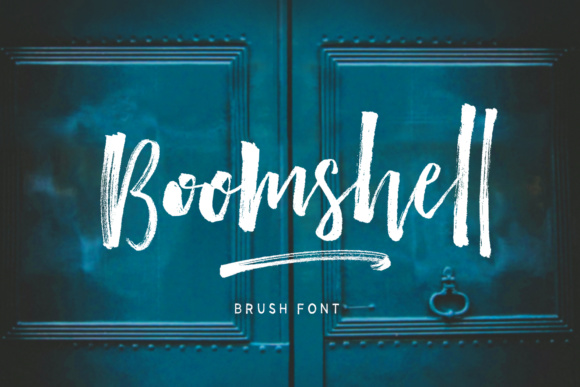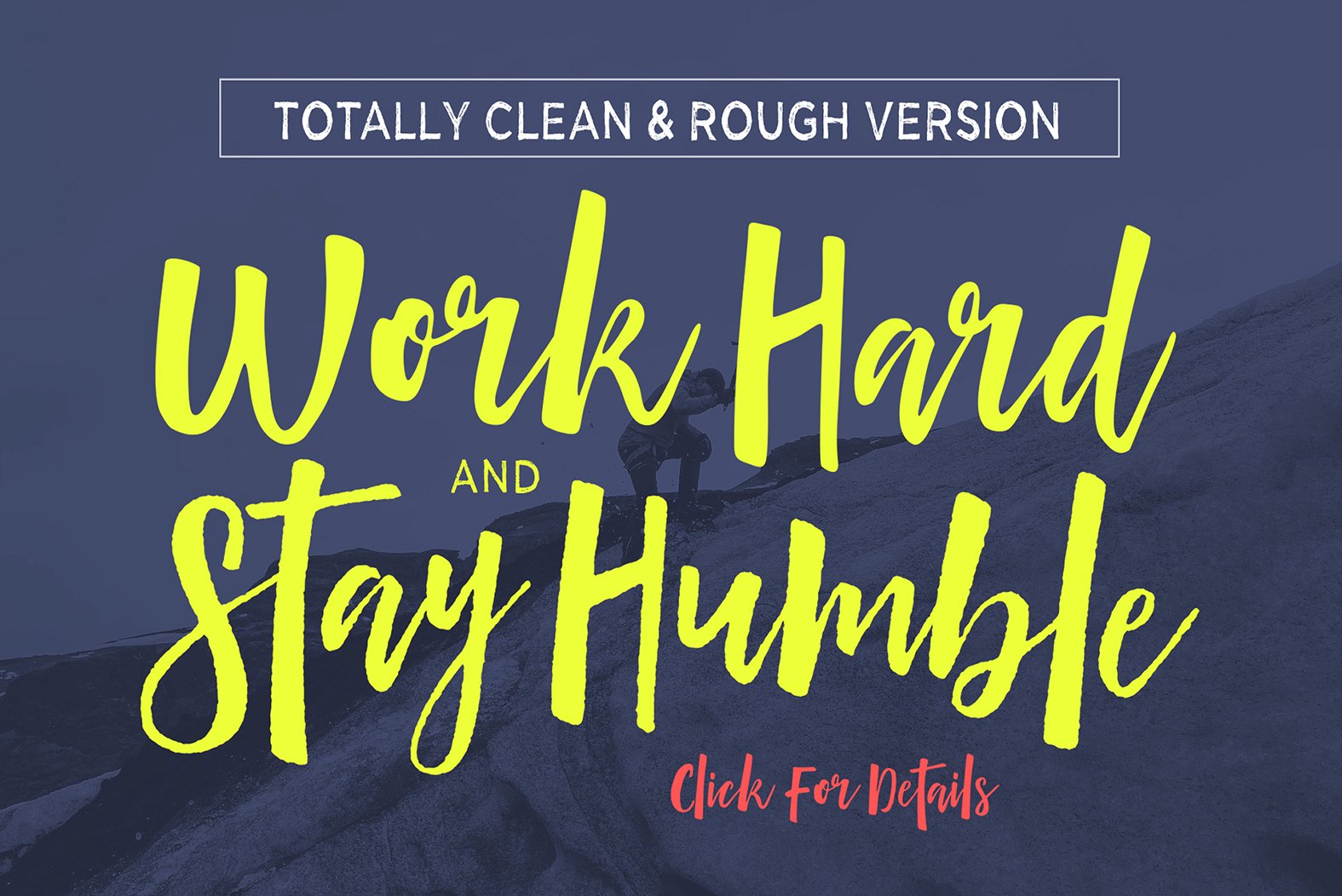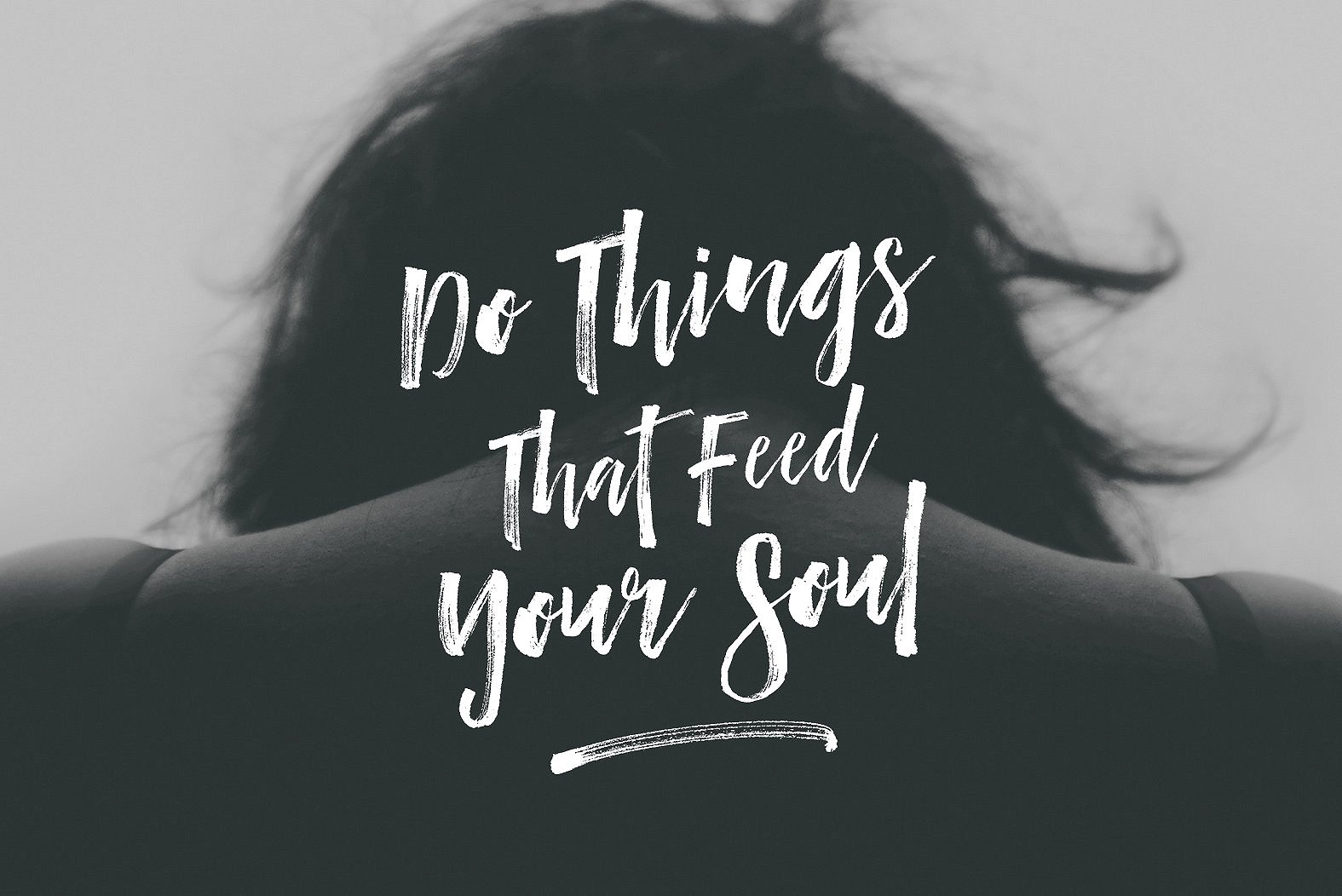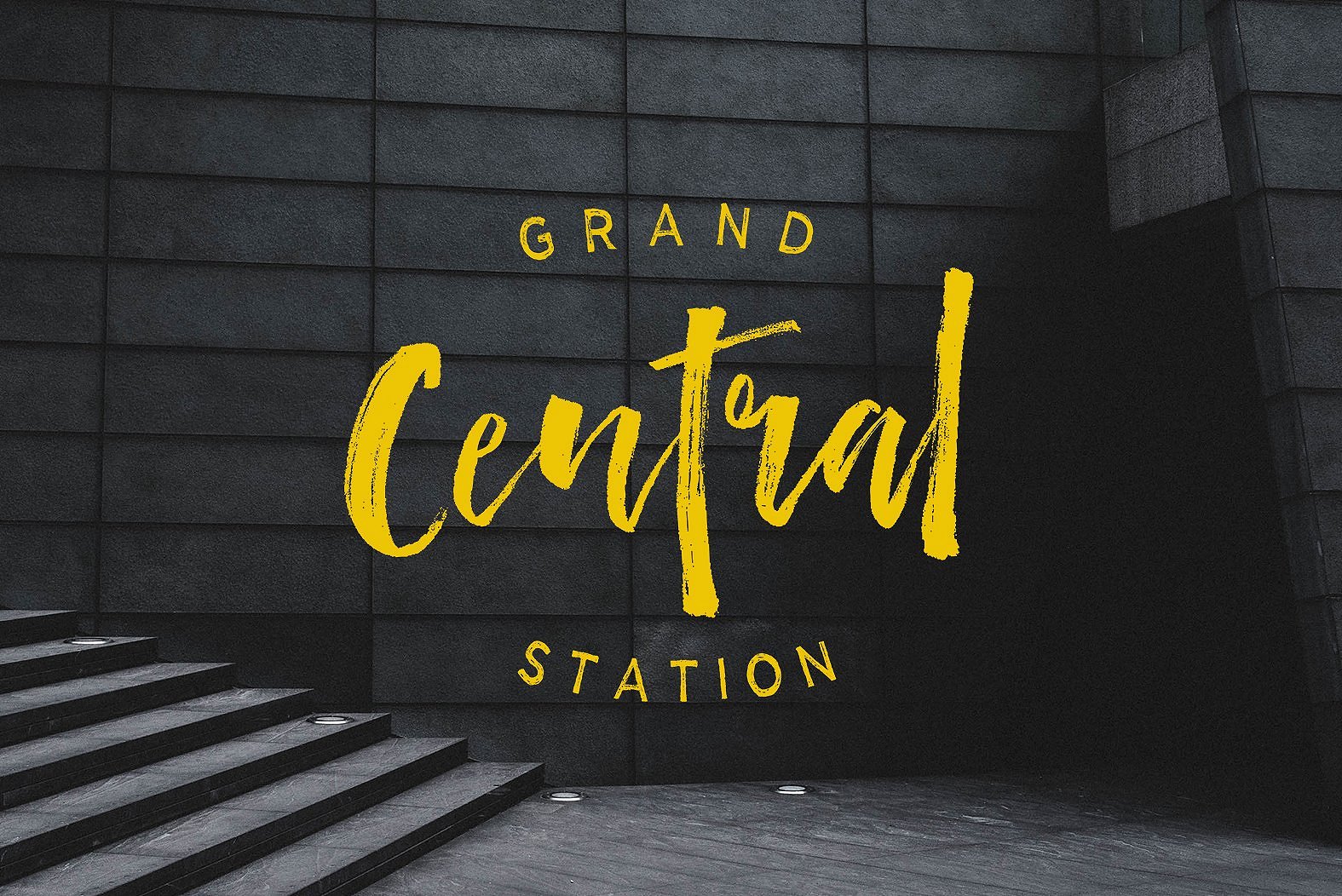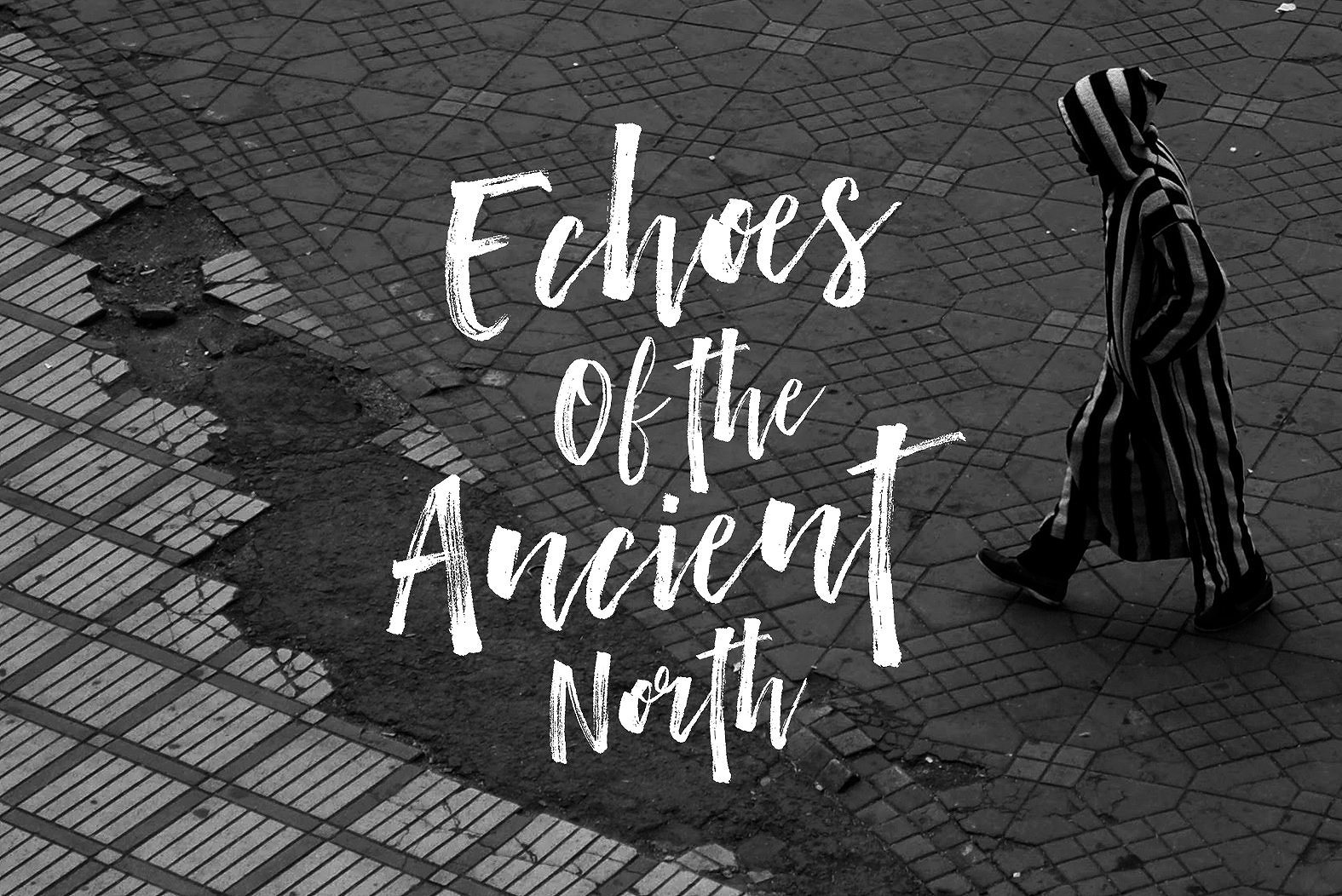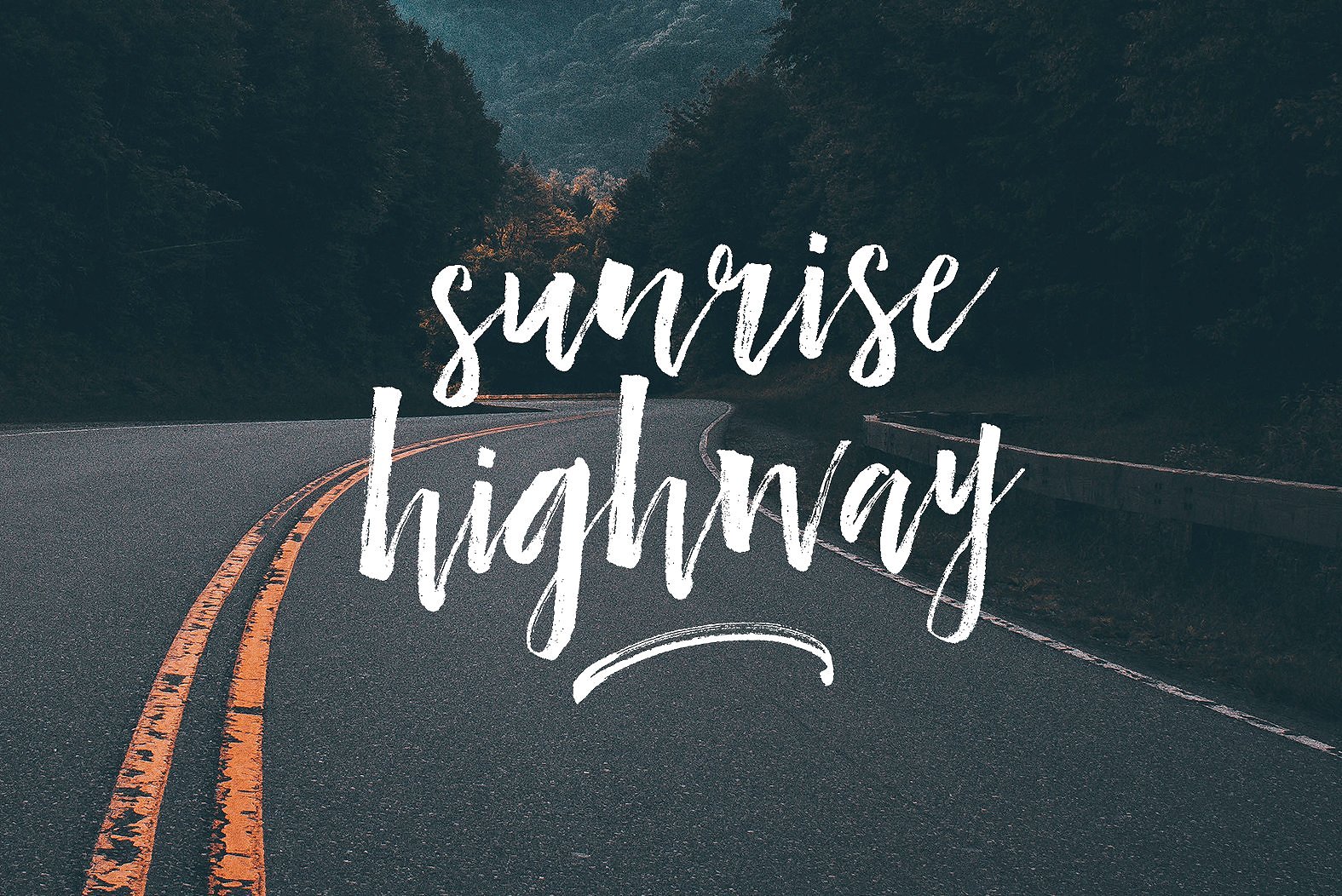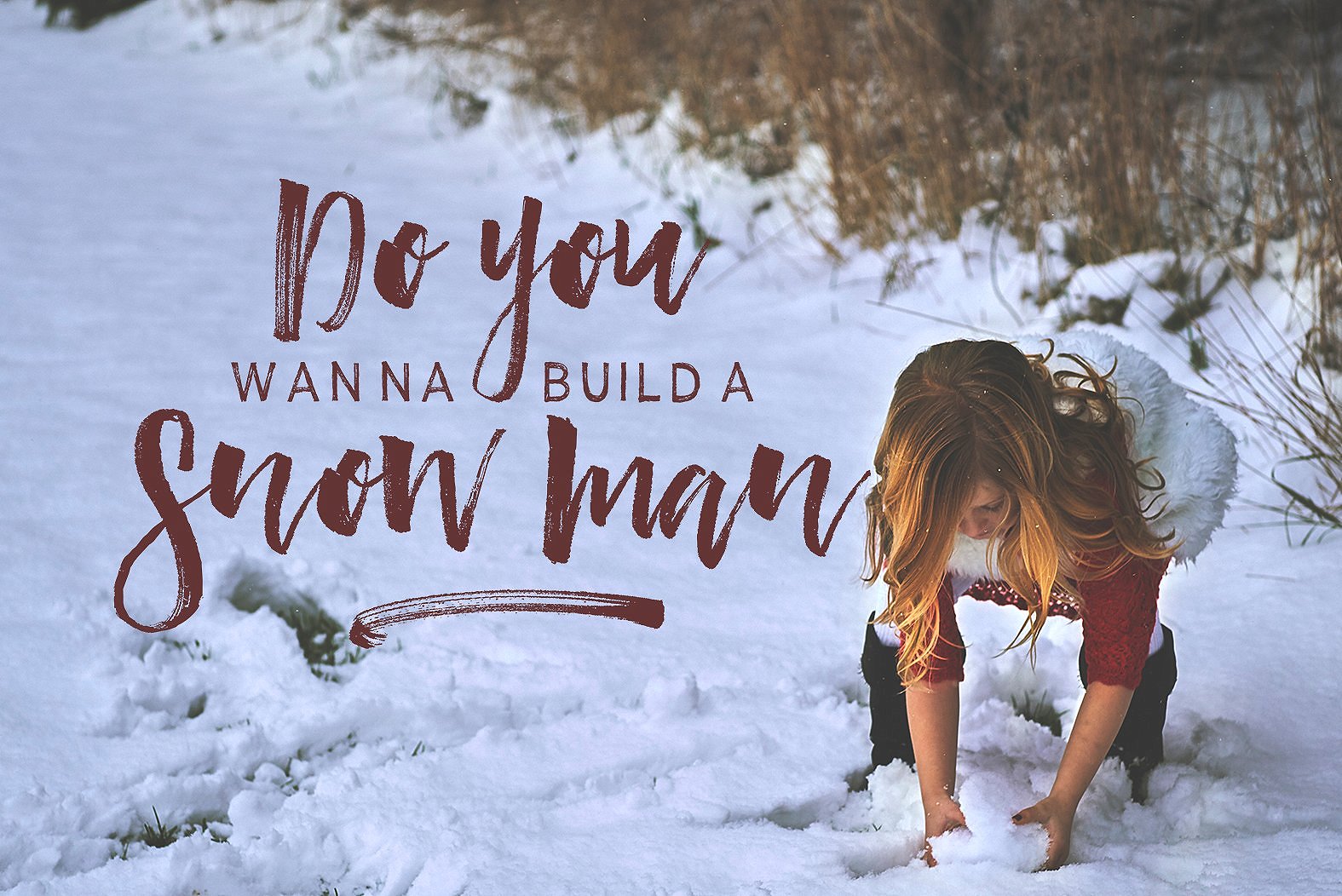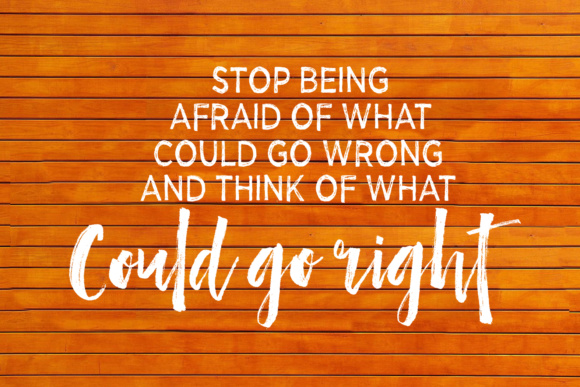
Boomshell Font
About Boomshell Font
With Boomshell, you might never want to use any other typeset again. Complete with complementary font styles, Boomshell makes it extremely easy to make fully realized typography design choices.
Boomshell, a hand painted brush script, is an incomparable, all inclusive set of font styles that will enrich your designs.